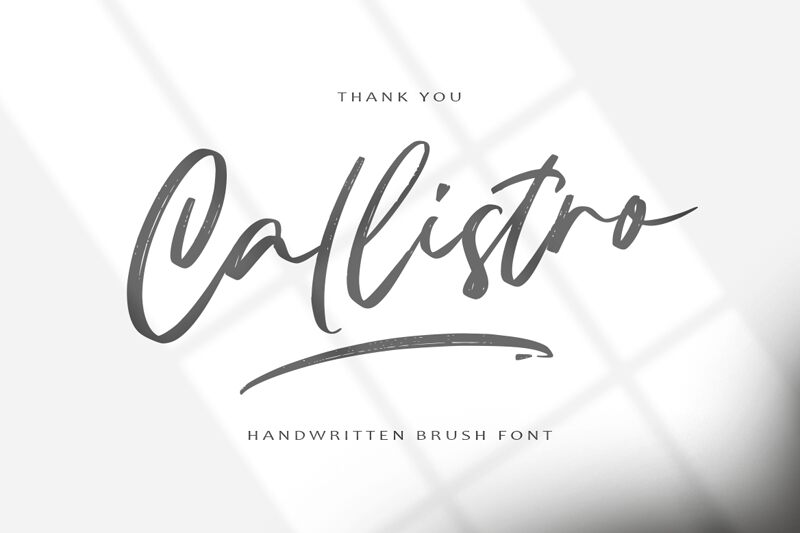
Callistro Demo
Callistro font, designed by Rochart Studio, is a free handwritten brush font that gracefully combines modern calligraphy with expressive artistic elements. It boasts fluidity and elegance in its character design, and with its soft lines and smooth edges; it offers an elegant touch to any text.
Use it to enhance product labels, branding projects, logo designs, typography artwork, brochures and flyers, posters/billboards quotes YouTube covers/shop & store names. Take things further by featuring Callistro on stunning website/blog layouts or mobile applications which is equally rewarding as well!